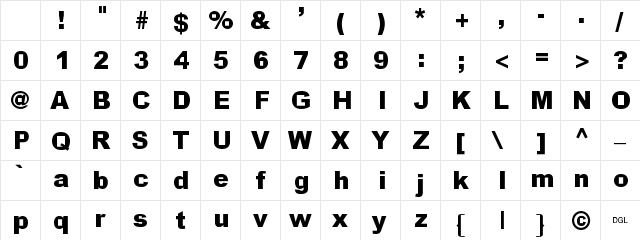
Incite is a composed and adaptable typeface that performs quietly and consistently across a wide range of design contexts.
Pro Tip: Use Incite in both headline and body roles to test its range before committing to a single application.